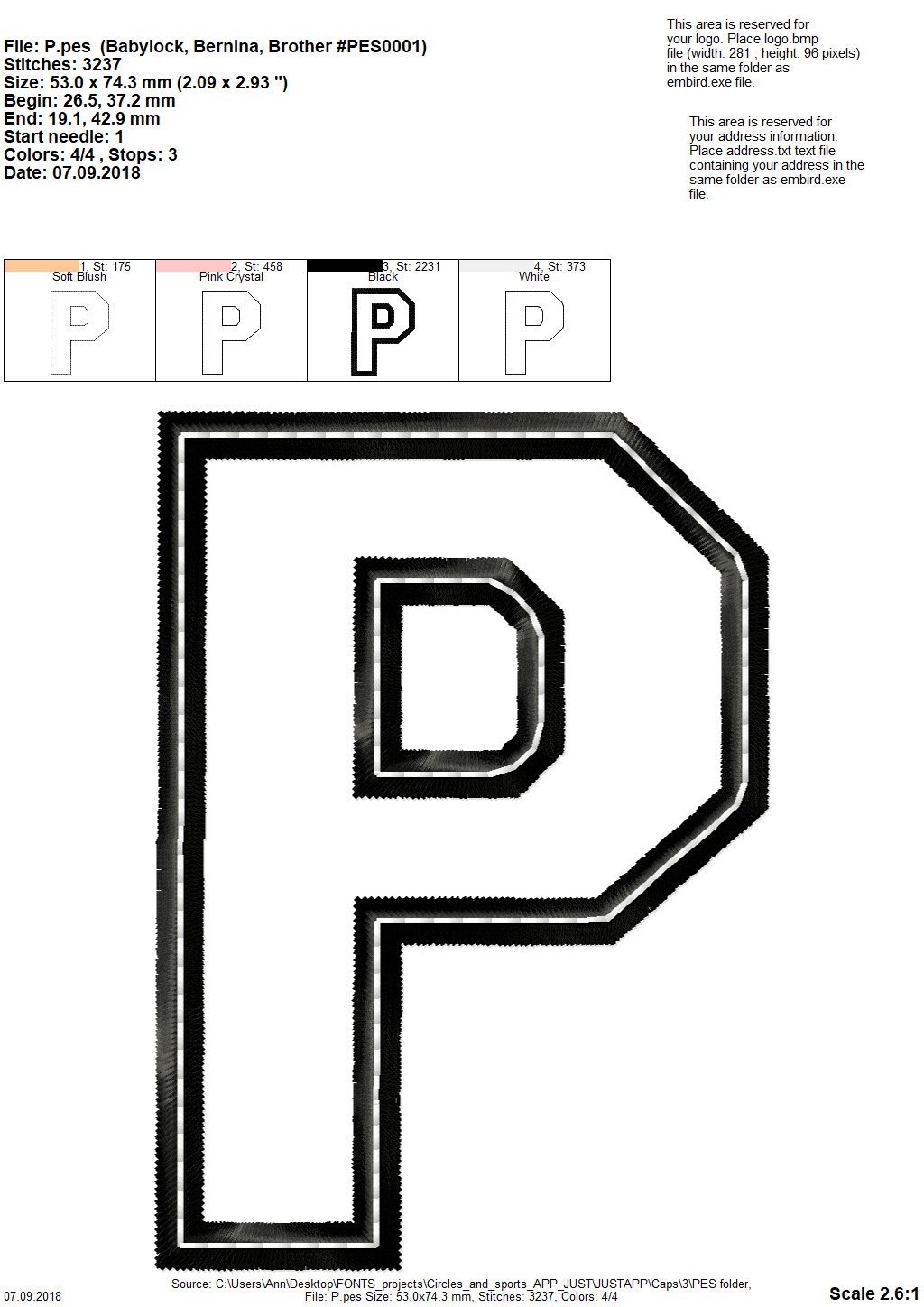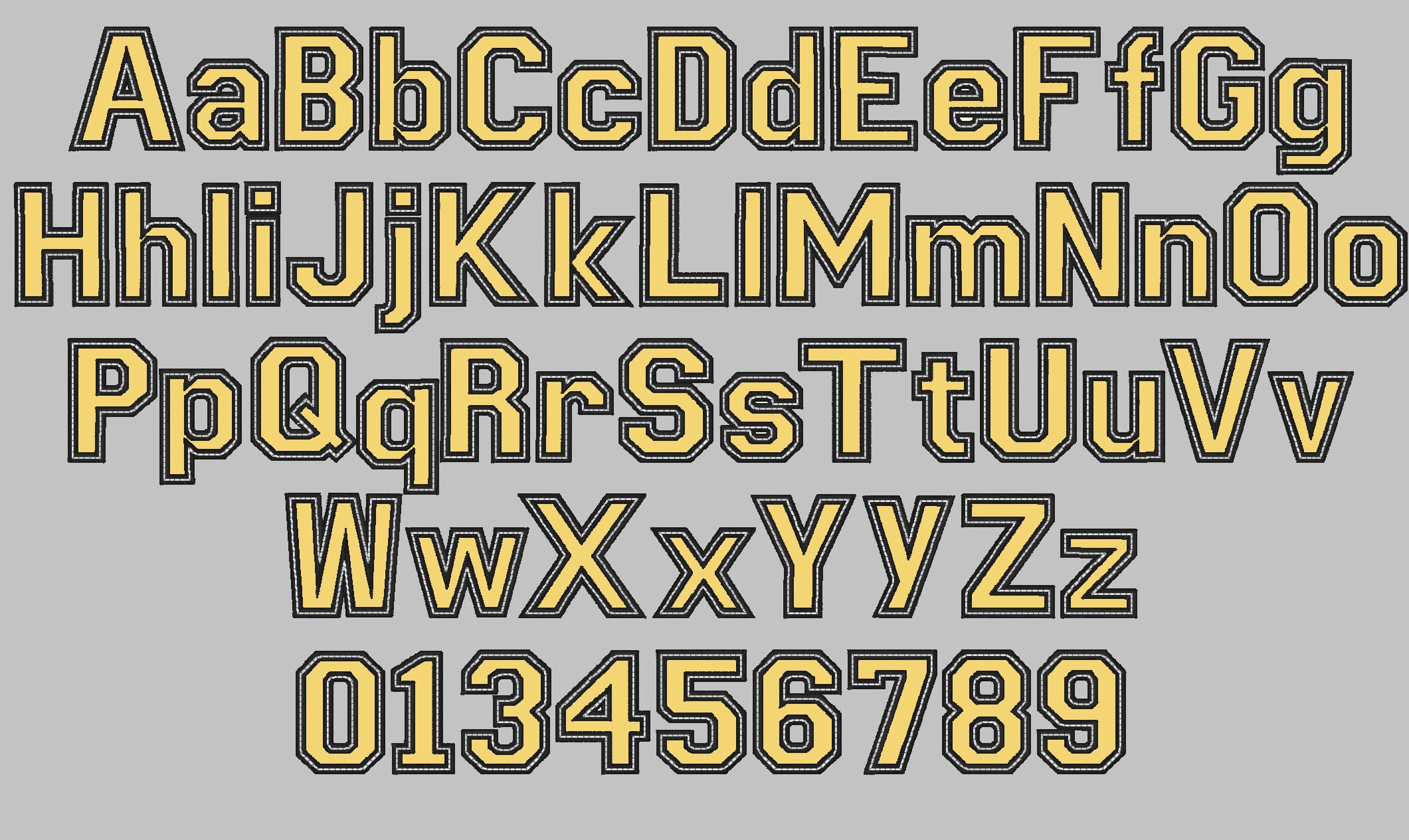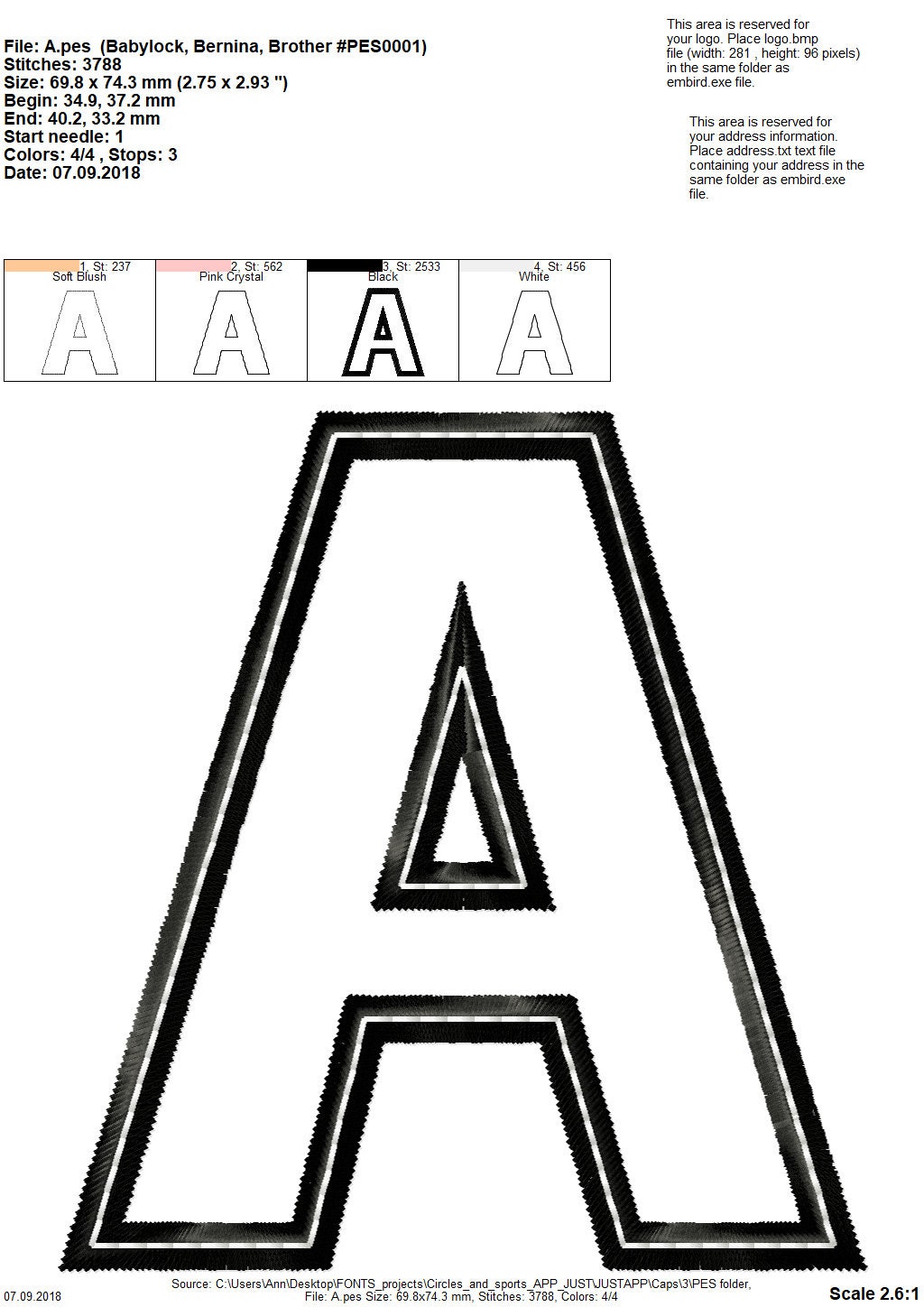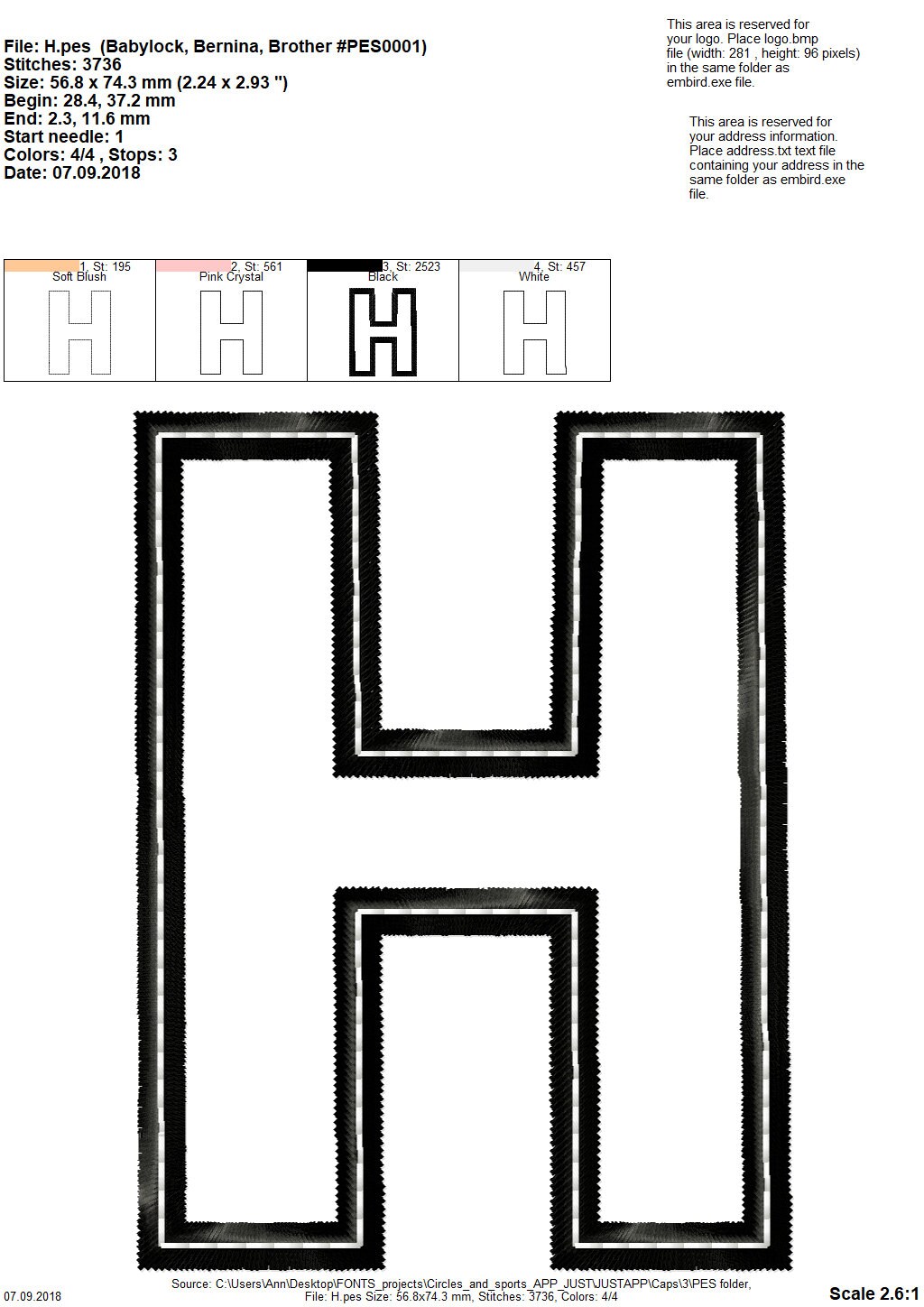
Block athletic Collegiate applique Sport Font machine embroidery applique designs in assorted sizes.
Uppercase and lowercase letters, and numbers.
Has a nice wide satin applique stitch and top triple stitch on top for a neat look and secure while washing. Can be skipped!